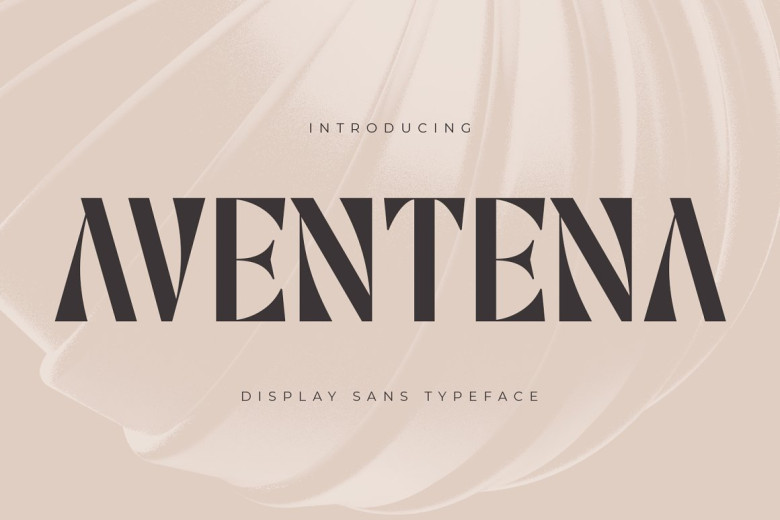
Aventena Font
Aventena is a display sans font, its design is inspired by the basic writing system of blackletter. A lot of changes have been made from the original form; this makes Aventena appear simple and yet is readable. Thus, you can explore and modify designs in various ways-headlines, posters, interfaces for computers or televisions screens or whatever you like.
Aventena Display Font